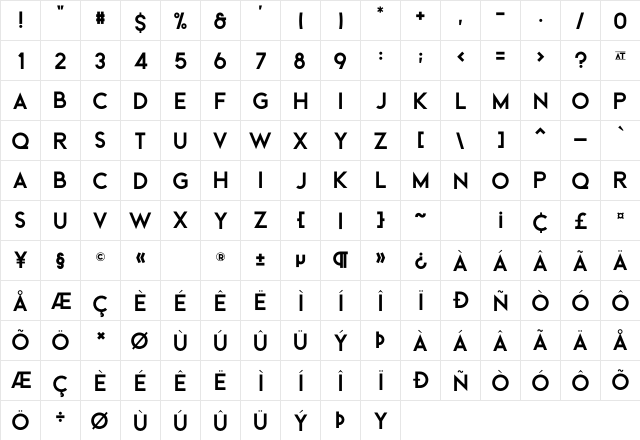
Beckman Free
Design Context for Beckman Typeface
Beckman offers clean, dependable letterforms without strong stylistic allegiance, making it a practical choice for designers who need flexibility.
Pro Tip: Use Beckman in both headline and body roles to test its range before committing to a single application.